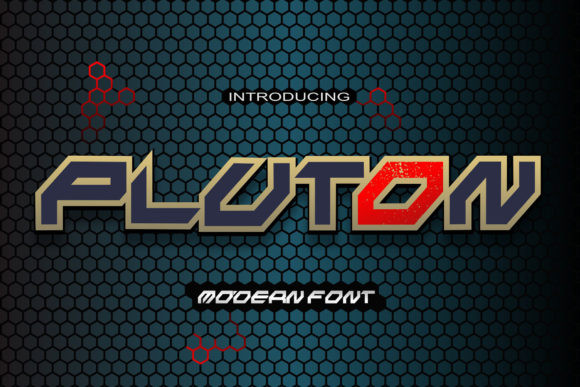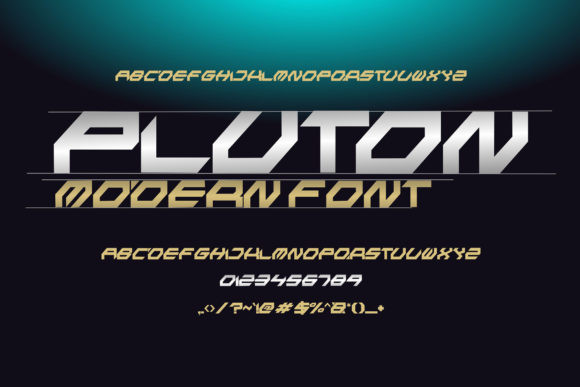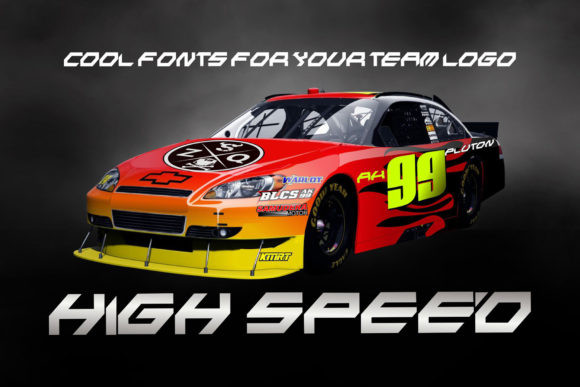
Pluton Font
Pluton is a Futuristic Font with an incredibly strong and decisive form, making it very suitable for logotypes, merchandise, especially racing projects.